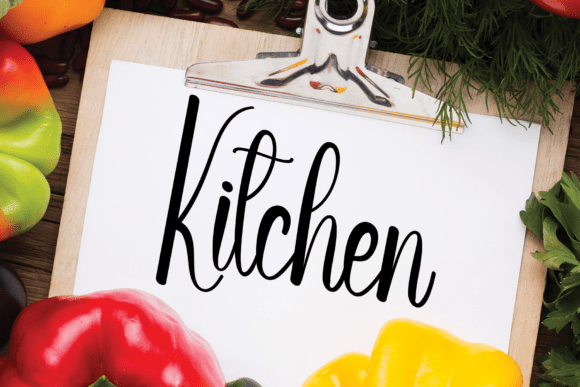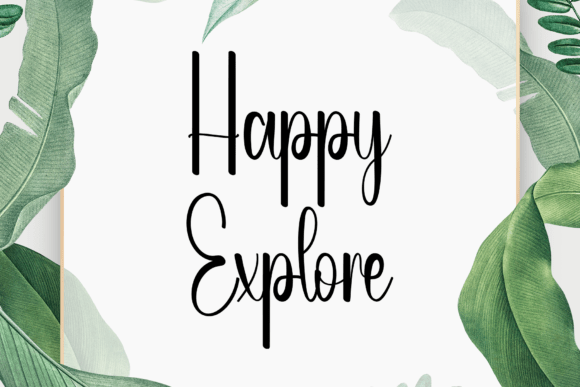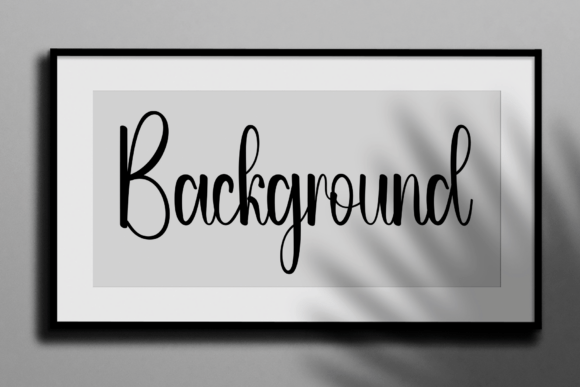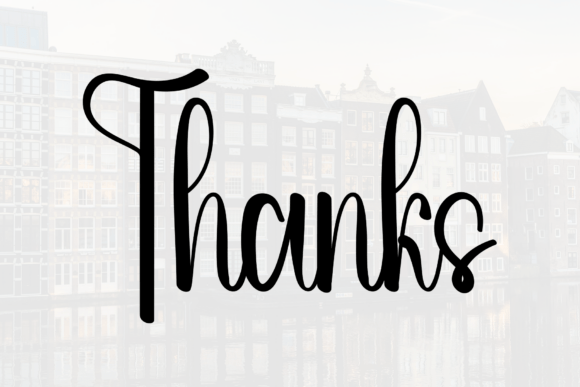
Introducing Digitals Font: Unleash Your Creative Energy
In the world of typography, fonts play a crucial role in conveying the tone and personality of a brand or creative project. If you’re a designer, craftsperson, or content creator looking for a font that embodies energy, spontaneity, and modernity, look no further than Digitals Font. This handwriting script font is designed to add a vibrant, personal signature to your work, making it perfect for various applications, from travel vlogger watermarks to urban apparel branding.
The Characteristics of Digitals Font
Digitals Font is a dynamic, bouncy script that radiates creative energy. Its sweeping descenders and rhythmic baseline provide a sense of movement and spontaneity, making it an ideal choice for creators who want to convey a sense of excitement and enthusiasm. The font’s unique characteristics include:
- Energetic and playful feel: Digitals Font has a lively, energetic vibe that’s perfect for brands and projects that want to convey a sense of youthful excitement.
- Sweeping descenders: The font’s sweeping descenders add a touch of elegance and sophistication, making it suitable for a wide range of applications.
- Rhythmic baseline: The rhythmic baseline of Digitals Font creates a sense of movement and flow, adding to the font’s dynamic and energetic feel.
- Legibility: Despite its playful and energetic nature, Digitals Font remains highly legible, making it perfect for use in various contexts, from digital media to print materials.
Ideal Use Cases for Digitals Font
Digitals Font is a versatile font that can be used in a variety of contexts. Here are some ideal use cases for this dynamic font:
- Travel vlogger watermarks: Add a personal touch to your travel vlogs with Digitals Font, creating a unique and recognizable watermark that reflects your brand’s personality.
- High-energy YouTube thumbnails: Make your YouTube thumbnails stand out with Digitals Font, conveying a sense of excitement and energy that grabs viewers’ attention.
- Urban apparel branding: Use Digitals Font to create bold, eye-catching branding for your urban apparel label, conveying a sense of modernity and style.
- Social media graphics: Add a pop of personality to your social media graphics with Digitals Font, creating engaging and shareable content that resonates with your audience.
In conclusion, Digitals Font is a dynamic, bouncy script that radiates creative energy and spontaneity. With its sweeping descenders, rhythmic baseline, and high legibility, it’s perfect for creators who want to add a vibrant, personal signature to their work. Whether you’re a designer, craftsperson, or content creator, Digitals Font is an excellent choice for various applications, from travel vlogger watermarks to urban apparel branding. So why not give it a try and unleash your creative energy with Digitals Font?